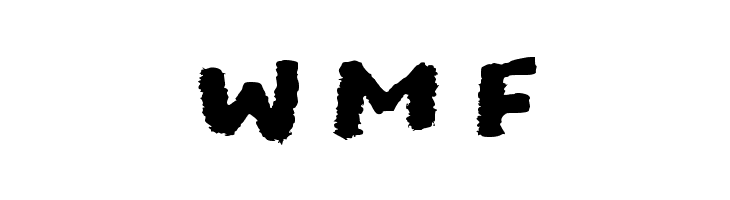
A decorative inline font with elegant, parallel line detailing.
An elegant inline font with a sophisticated, decorative style.
A high-contrast, modern sans-serif with decorative flourishes.
Playful, expressive handwritten script with tall, narrow forms.
A high-contrast, geometric sans-serif with artistic, modern flair.
Casual, handwritten script with tall, flowing characters.
A bold, geometric font with high contrast and angular serifs.
A bold, angular serif font with a condensed and geometric style.
Intricate and decorative ornaments with a vintage and classic style.
A bold, decorative font with geometric and intricate patterns.
A bold, modern font with strong, thick strokes and uniform width.
A flowing, cursive font with elegant and interconnected characters.
A flowing, cursive font with elegant, sweeping strokes and a handwritten appearance.
A bold, expressive script font with dynamic, fluid strokes.
A dynamic brush-style font with expressive, fluid strokes and artistic flair.
A bold, brush-style font with a dynamic, handwritten appearance.
A bold, playful handwritten font with thick strokes and a casual style.
A bold, geometric font with a futuristic and industrial design.
A bold, brush-style font with a hand-painted, artistic appearance.
A bold, brush-style font with a hand-drawn, expressive appearance.
A bold, three-dimensional font with shadow effects for impactful designs.
A bold, textured font with an organic, brush-like appearance.
A bold, distressed font with a rugged, vintage feel.
A graceful script font with fluid, connected strokes and elegant curves.
A bold and flowing script font with interconnected letters and expressive strokes.
A lively, brush script font with bold, expressive strokes and high contrast.
A bold, geometric font with sharp angles and consistent stroke width.
A bold, geometric font with a modern, industrial style.
A modern, monospaced font with a clean, geometric design.